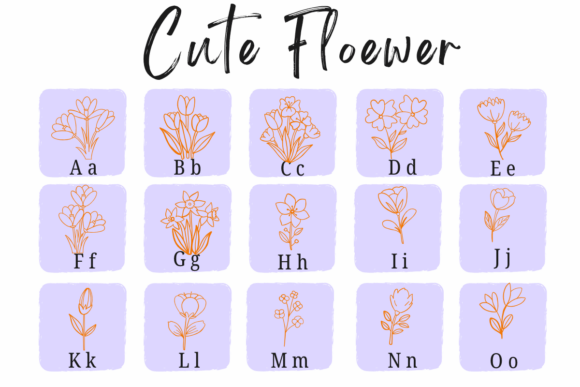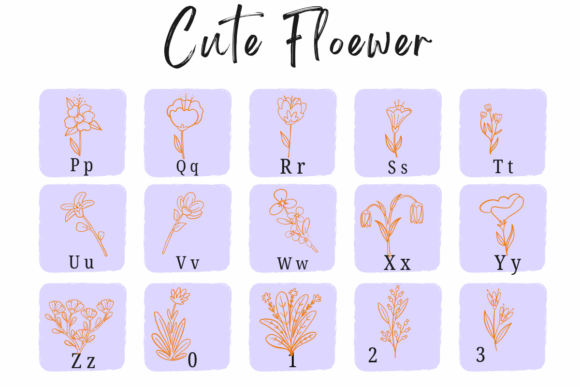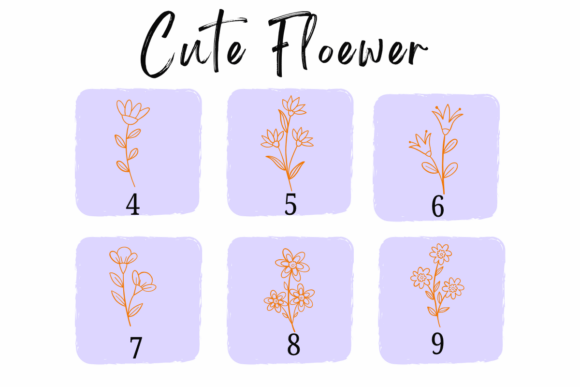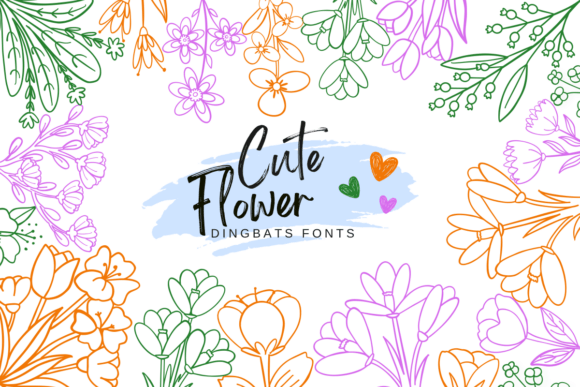
Introduction to Cute Flower Font
Cute Flower is a playful font made up of adorable little flower designs instead of letters.
Each character is a unique, cute flower, perfect for adding a fun and charming touch to your designs .